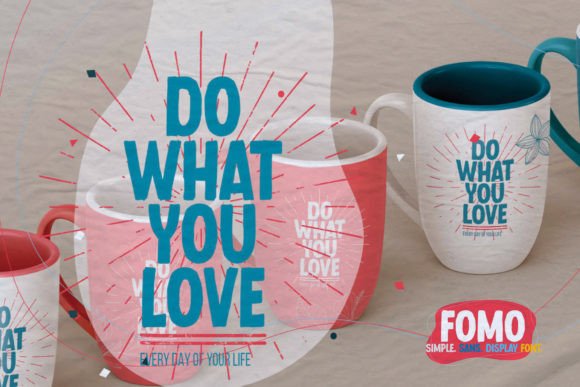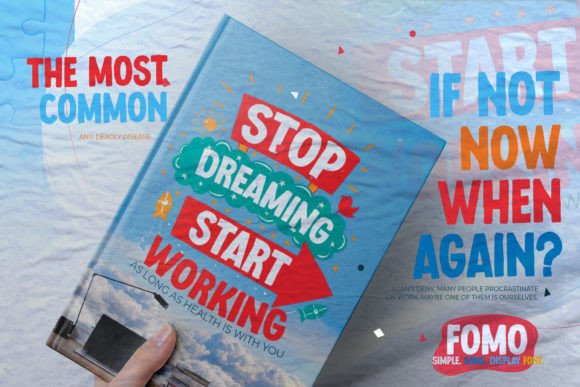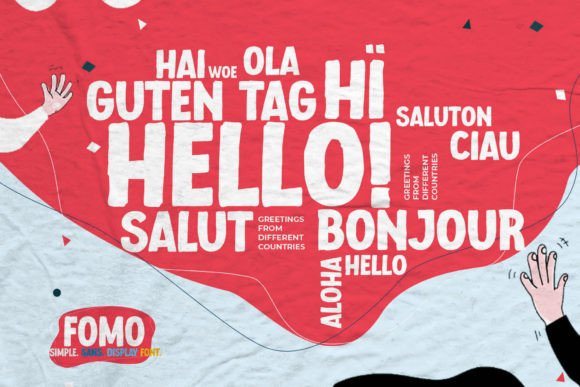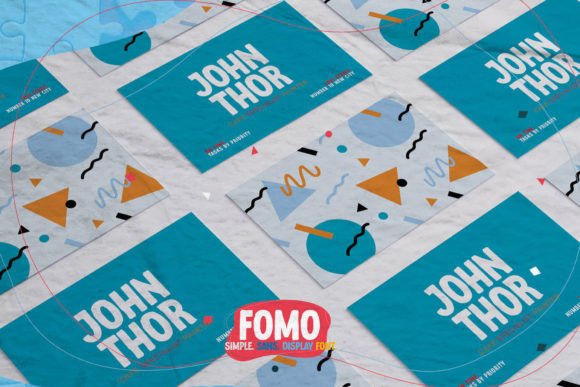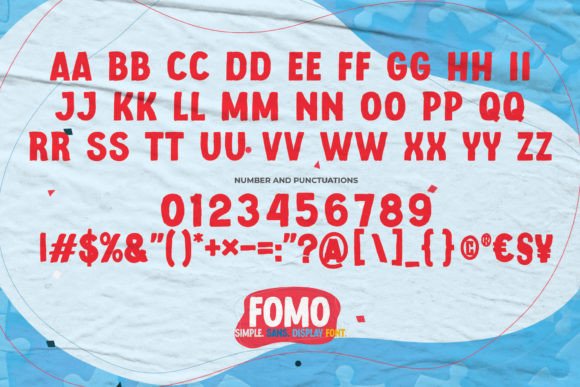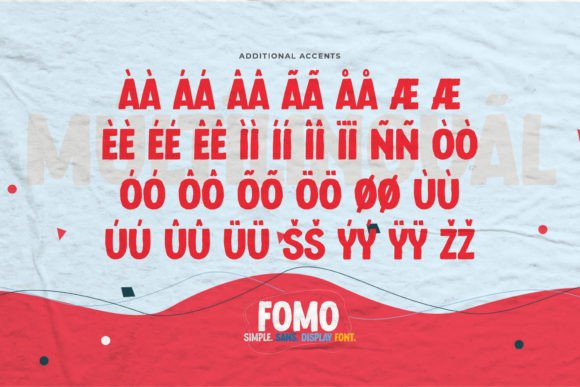
Introduction to Fomo Font
Fomo is a simple and bold sans serif font with a unique style and modern look.
It is perfect for logos, posters, advertising, magazines, book covers, branding, business cards, or any project that needs inviting typography .